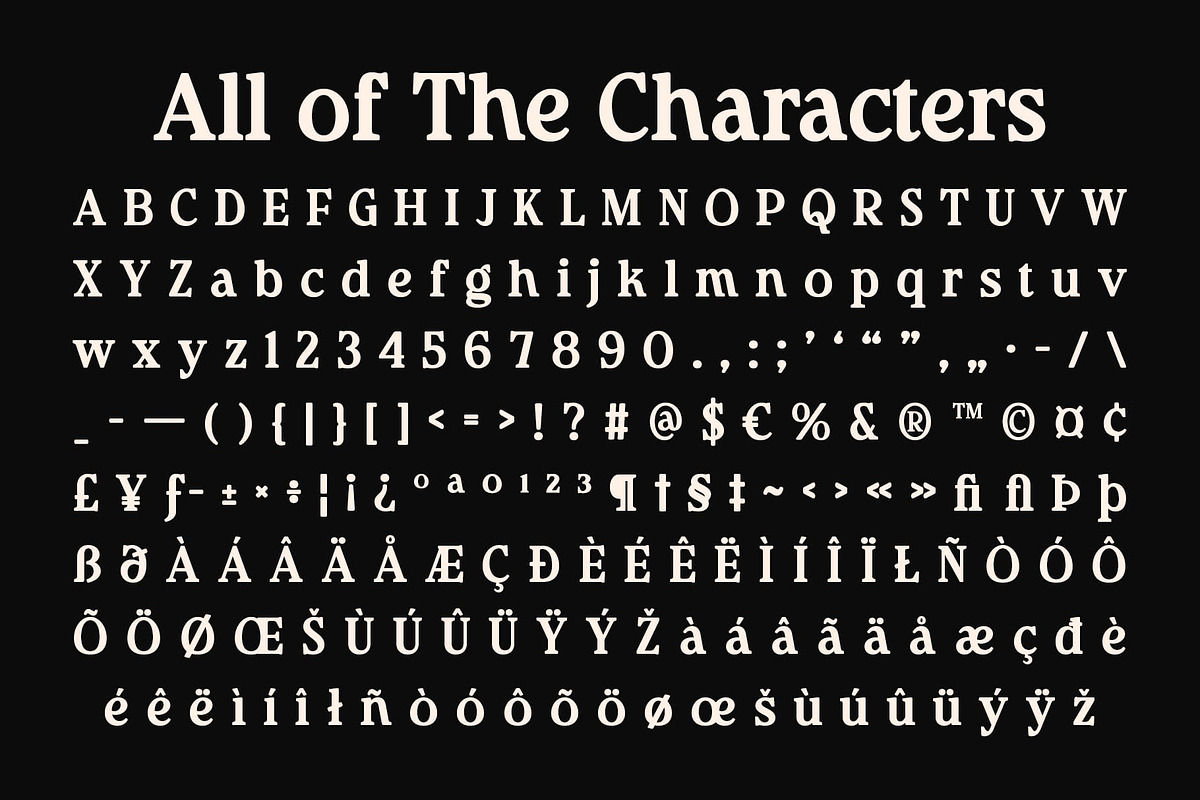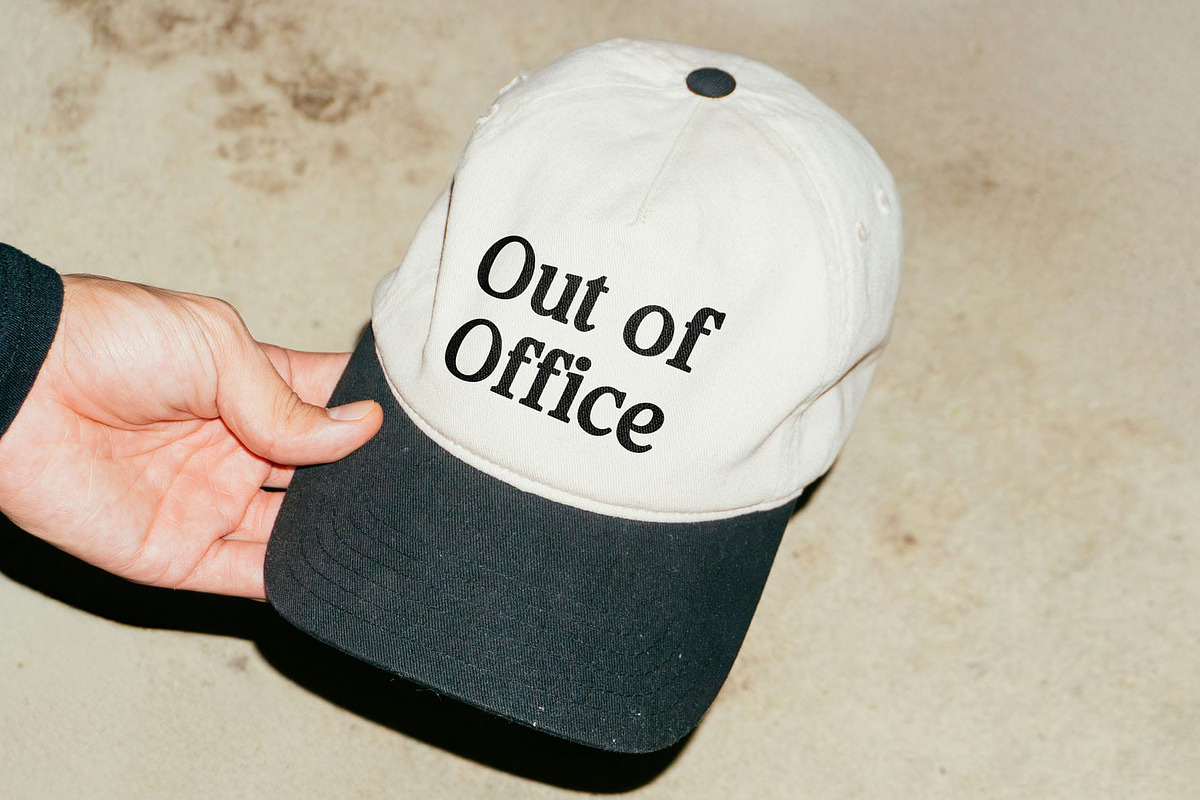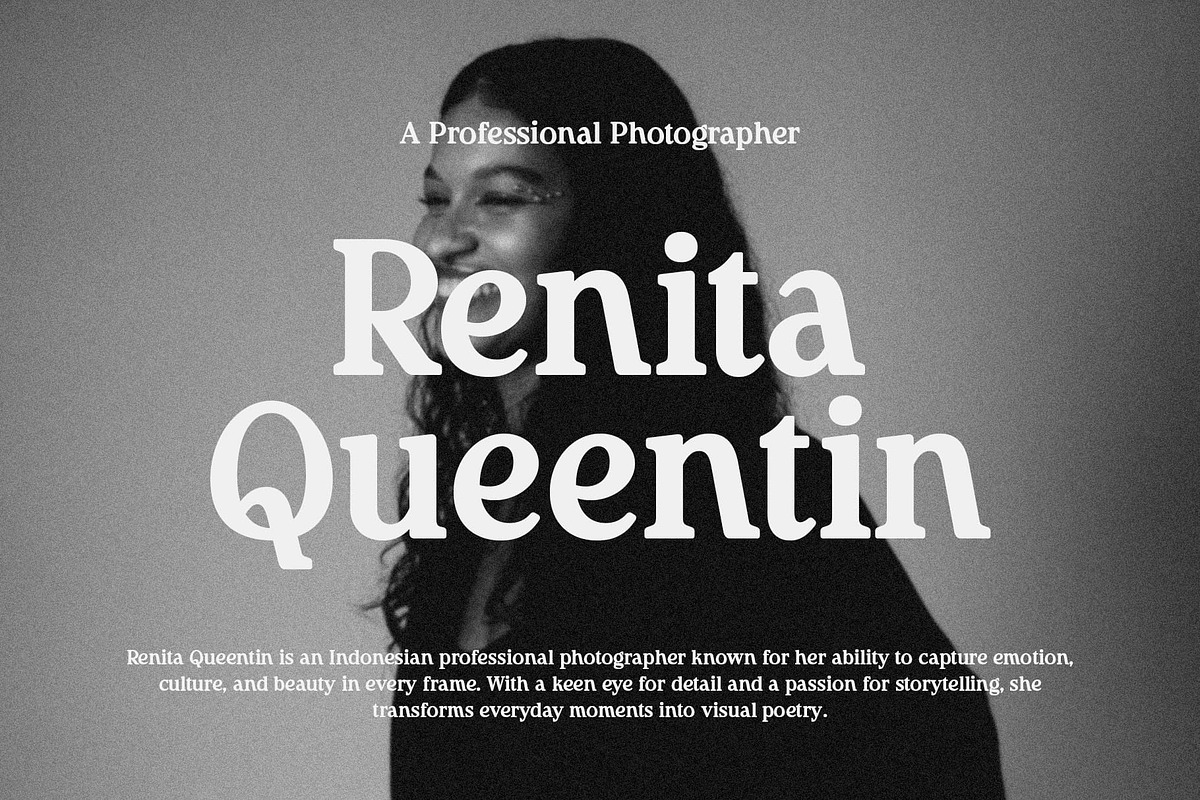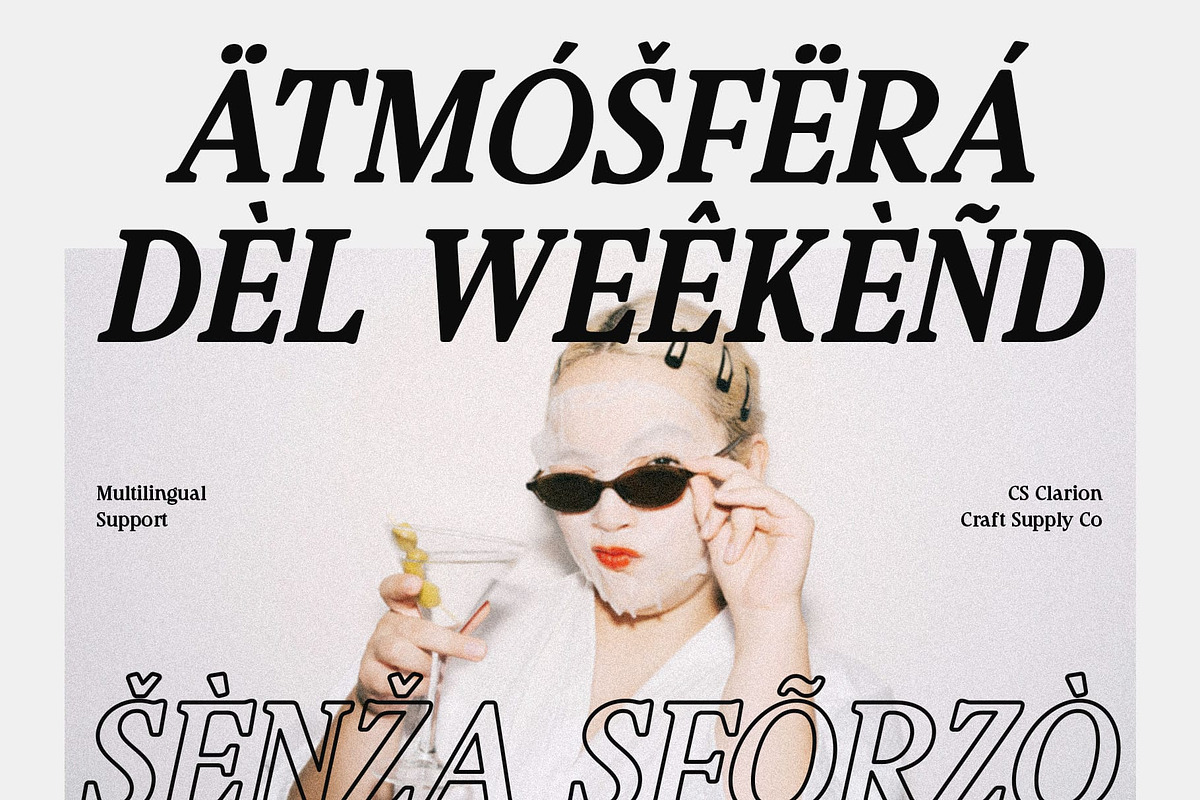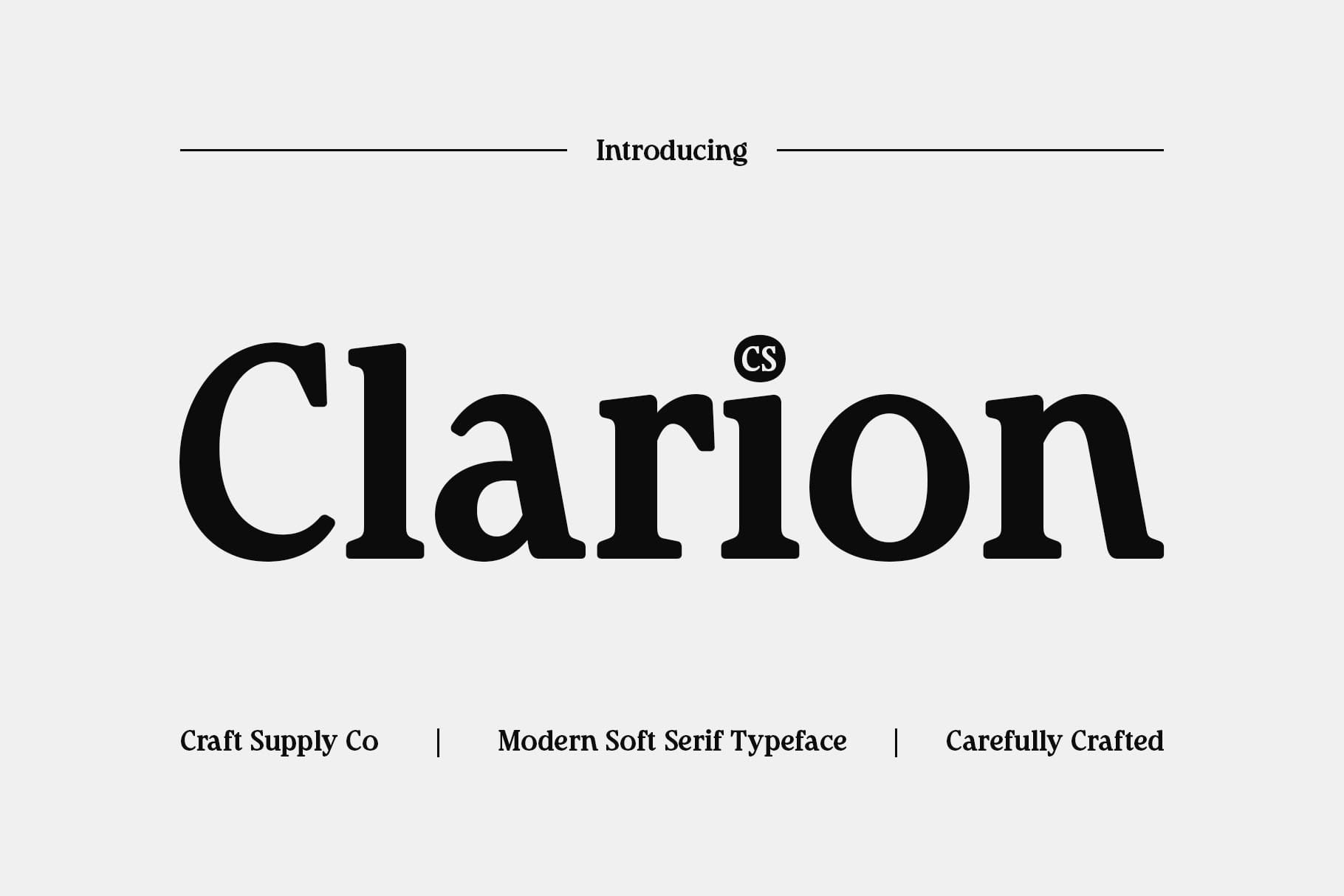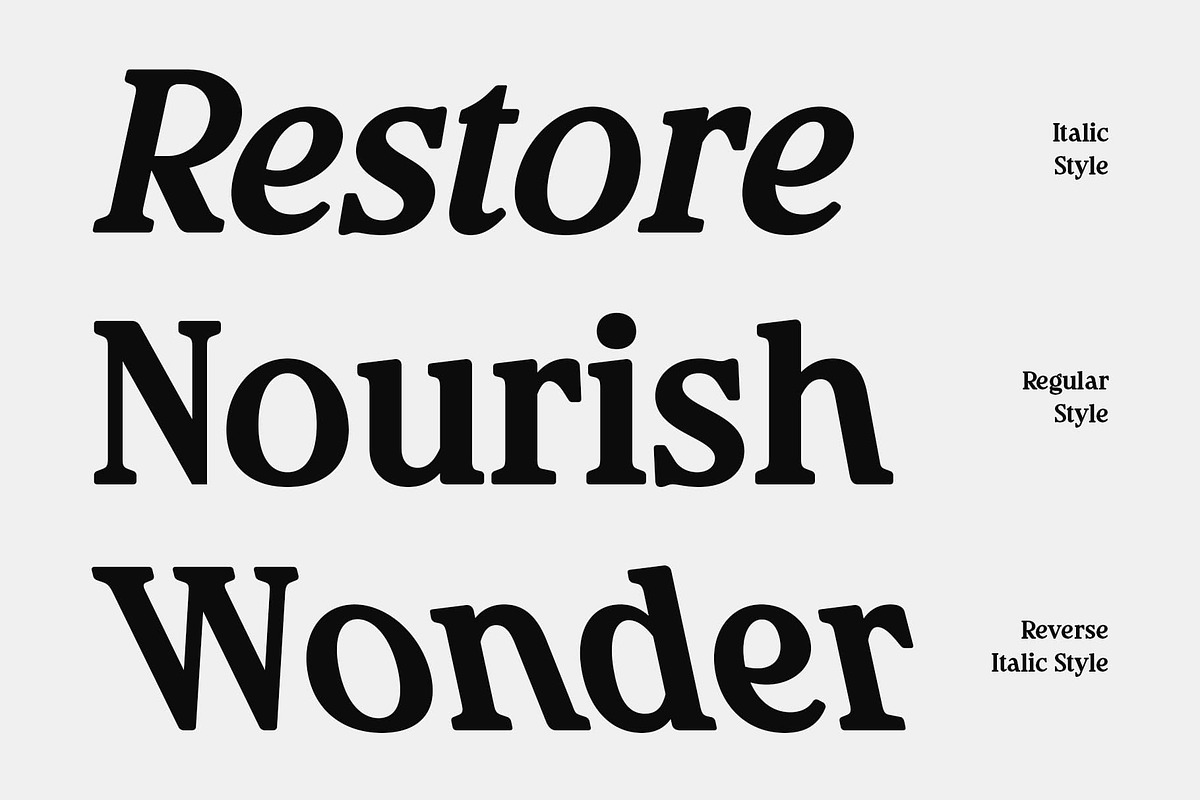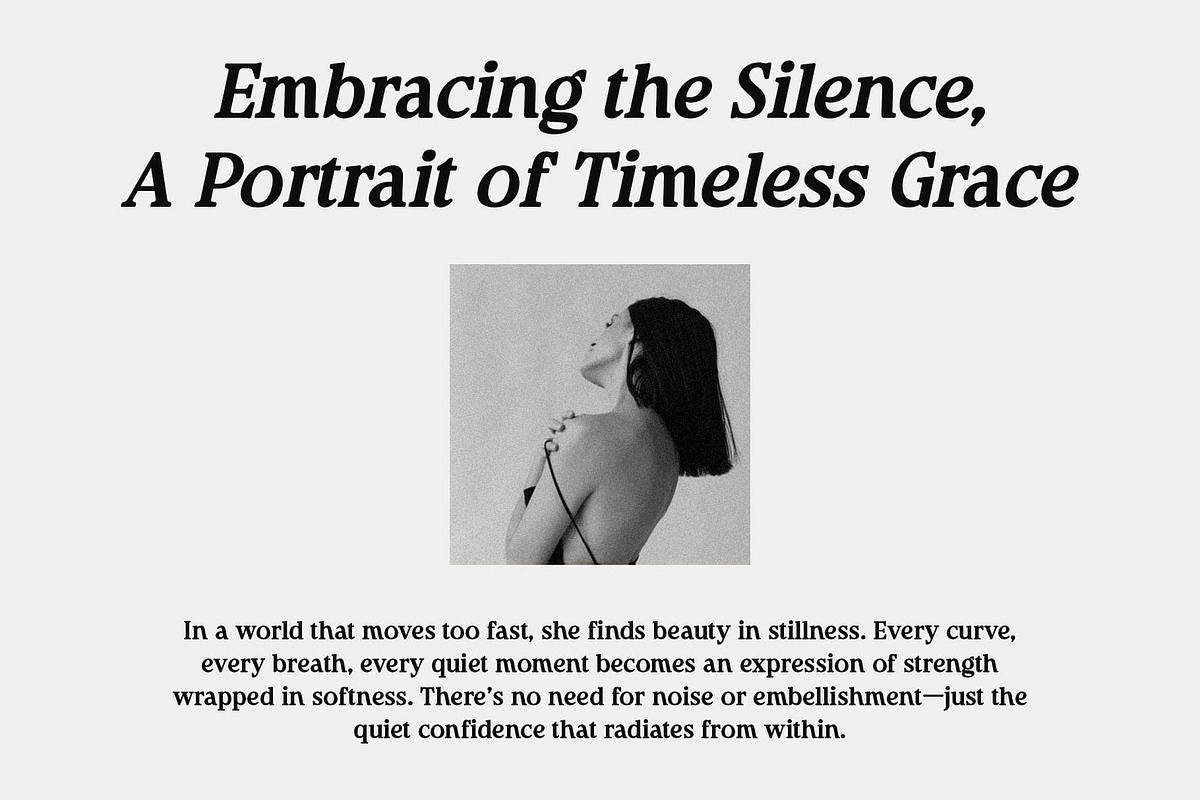
CS Clarion – Modern Serif Font
CS Clarion – Modern Serif Font: Modern Sophistication with a Playful Edge
Elegant Structure with Playful Details This is a modern serif font that blends sophistication with charm. While its overall form is clean and refined, subtle playful touches in certain letters give it a relaxed and contemporary feel. This balance between professionalism and personality makes it a truly distinctive choice for creative designers.
Smooth Lines for a Warm Impression The font’s smooth curves and gentle transitions create a sense of warmth and approachability. Every stroke flows seamlessly, evoking a feeling of modern elegance while maintaining readability and visual harmony across various design applications.
Artistic Flair with Modern Simplicity This font captures the essence of modern luxury simple, graceful, and full of quiet confidence. Its artistic design ensures it stands out without being overwhelming, perfect for projects that require both subtlety and style.
Perfect for Luxury Branding and Editorials Ideal for luxury branding, posters, and editorial layouts, this font offers versatility and charm in equal measure. Whether used for elegant headlines or refined body text, this font delivers a sophisticated, stylish, and effortlessly artistic impression.
- CS Clarion Regular
- CS Clarion Italic
- CS Clarion Reverse Italic